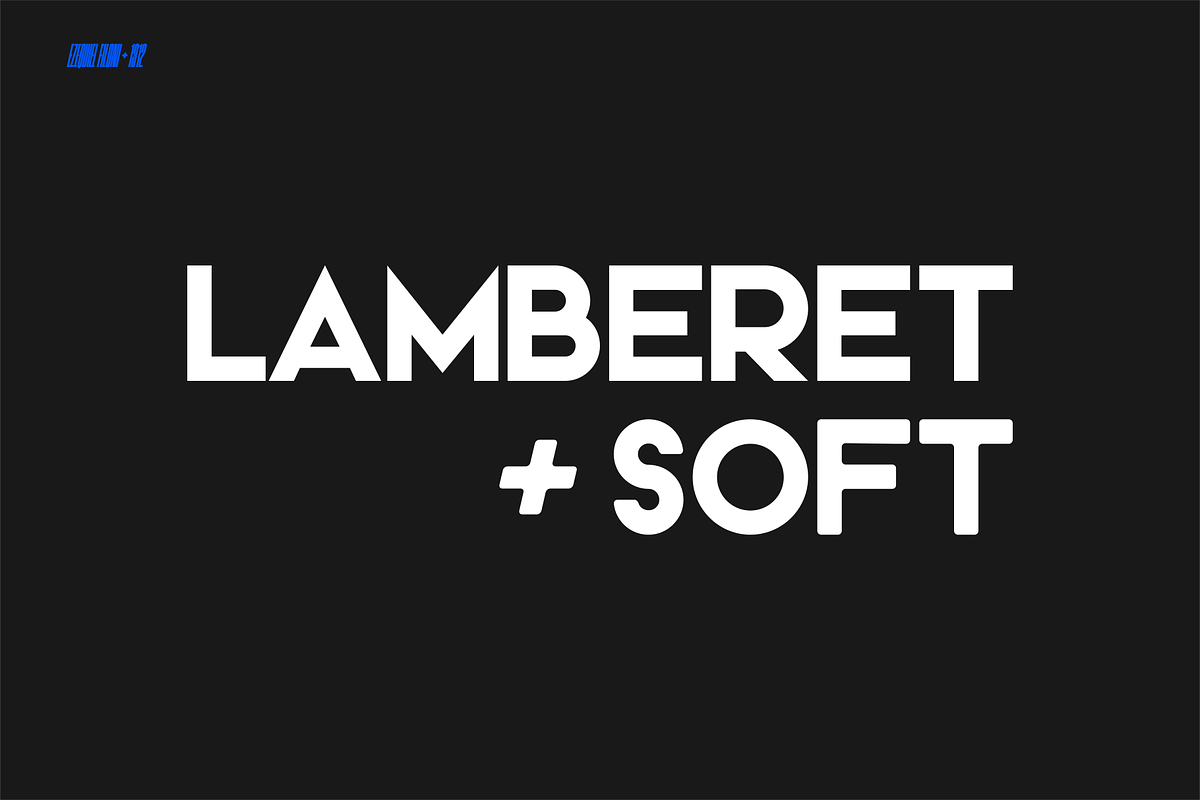
Lamberet - Display Fonts Free Download is a bold and artistic typeface crafted to stand out in any creative project. With its stylish curves, sharp angles, and distinctive character shapes, Lamberet is perfect for posters, album covers, logo design, editorial titles, and fashion branding. It delivers a modern, expressive look that instantly grabs attention.
Designed for high-impact visual storytelling, Lamberet thrives in both print and digital formats. Its unique letterforms add a touch of elegance while keeping a contemporary edge, making it a go-to choice for designers seeking originality and flair.